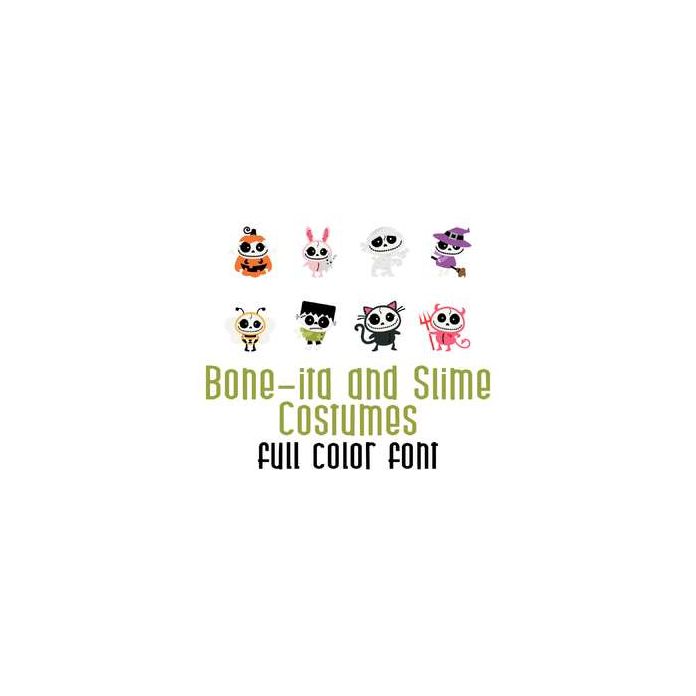
This adorable full color doodlebat font features adorable skeletons dressed up for Halloween. Perfect for cards, crafts, gifts, decor, scrap book pages, planner stickers and more!